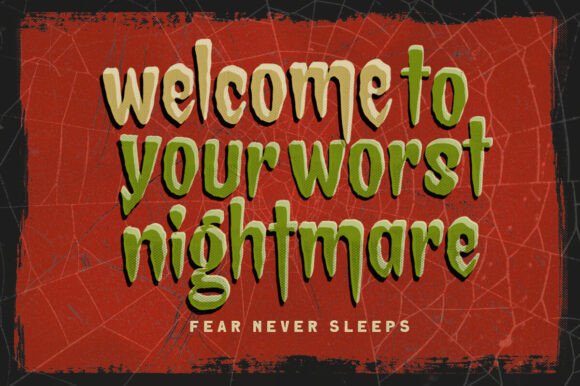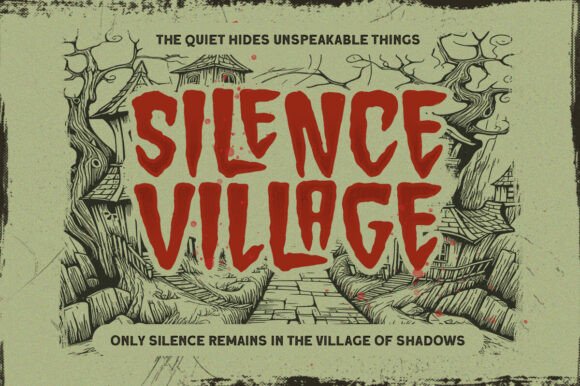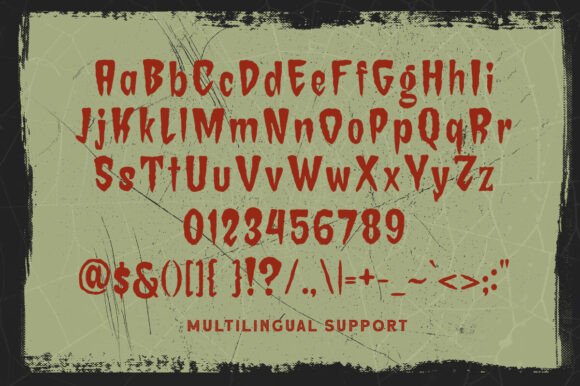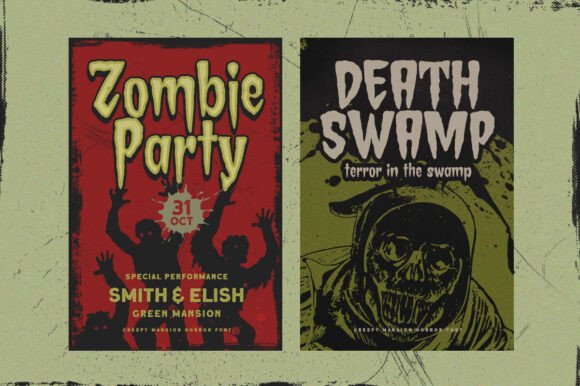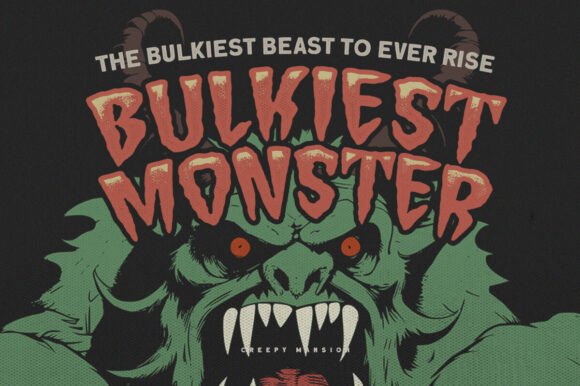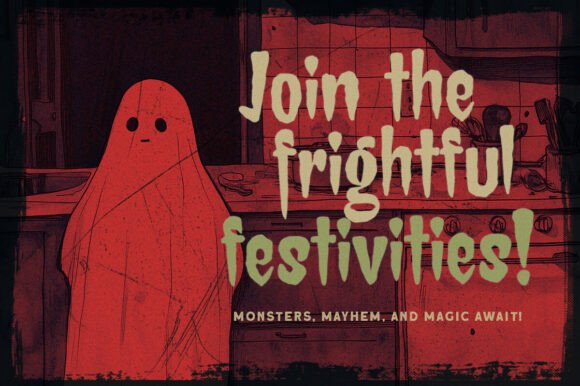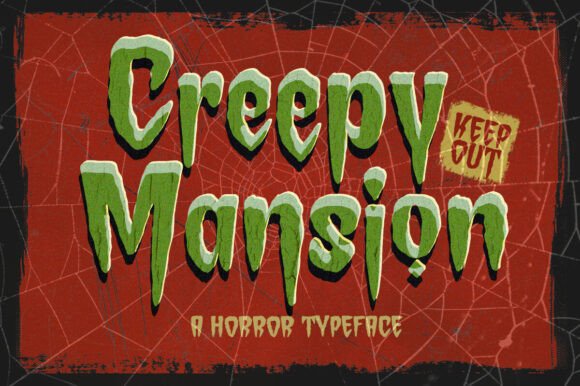
Unleash the Horror with Creepy Mansion Font: A Hauntingly Mesmerizing Horror Display Font
Embrace the macabre with our latest font creation, Creepy Mansion – a hauntingly mesmerizing horror display font that beckons to the shadows. Prepare to embark on a spine-tingling journey into the darkest realms of design, where fear and fascination intertwine. In this article, we’ll delve into the eerie world of Creepy Mansion Font, exploring its features, uses, and the inspiration behind this chilling design.
The Inspiration Behind Creepy Mansion Font
The Creepy Mansion Font is a result of a careful blend of traditional horror elements and modern design techniques. Our team of designers drew inspiration from classic horror movies, haunted mansions, and creepy abandoned asylums. We aimed to create a font that would evoke a sense of eeriness and foreboding, perfect for designers and crafters looking to add a touch of horror to their projects.
The font’s design is characterized by its bold, gothic letters, intricate details, and a sense of worn, aged elegance. Each letterform has been carefully crafted to convey a sense of mystery and terror, making it perfect for use in horror-themed designs, such as movie posters, haunted house invitations, and creepy crafts.
Features of Creepy Mansion Font
Creepy Mansion Font boasts a range of features that make it a versatile and effective design tool. Some of its key features include:
- Unique Letterforms: Each letter in the Creepy Mansion Font has been designed to be distinct and eerie, with intricate details that add to the overall sense of horror.
- Bold and Elegant: The font’s bold, gothic style makes it perfect for use in display text, while its elegant details add a touch of sophistication.
- High-Quality Design: The font has been designed with high-quality, scalable vectors, ensuring it looks great in any size or application.
Uses of Creepy Mansion Font
Creepy Mansion Font is a versatile design tool that can be used in a variety of applications, including:
- Horror Movie Posters: Add a touch of horror to your movie posters with Creepy Mansion Font, perfect for promoting your next horror film.
- Haunted House Invitations: Create spooky invitations for haunted houses, Halloween parties, or other horror-themed events.
- Creepy Crafts: Use Creepy Mansion Font to add a touch of horror to your crafts, such as DIY decorations, cards, or gift tags.
- Graphic Design: Incorporate Creepy Mansion Font into your graphic design projects, such as brochures, flyers, or social media graphics.
Tips for Using Creepy Mansion Font
To get the most out of Creepy Mansion Font, here are some tips to keep in mind:
- Use it Sparingly: Creepy Mansion Font is a bold, attention-grabbing font. Use it sparingly to avoid overwhelming your design.
- Pair it with Other Fonts: Combine Creepy Mansion Font with other fonts to create a unique and interesting contrast.
Creepy Mansion Font is a hauntingly mesmerizing horror display font that’s perfect for designers and crafters looking to add a touch of horror to their projects. With its unique letterforms, bold and elegant design, and high-quality vectors, this font is sure to make a statement. Whether you’re creating horror movie posters, haunted house invitations, or creepy crafts, Creepy Mansion Font is the perfect tool for unleashing your creativity and embracing the macabre.